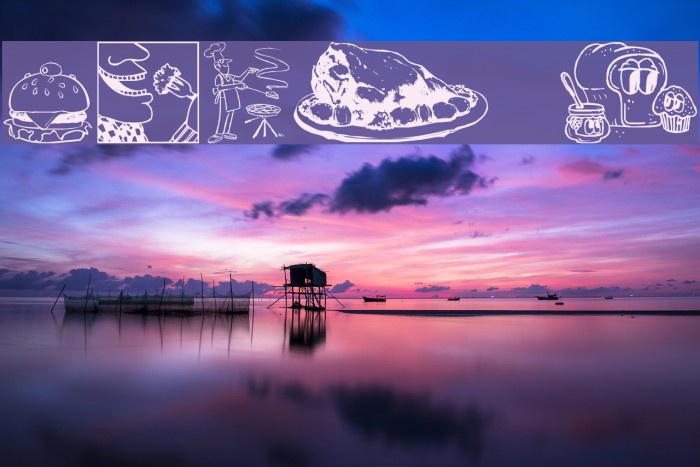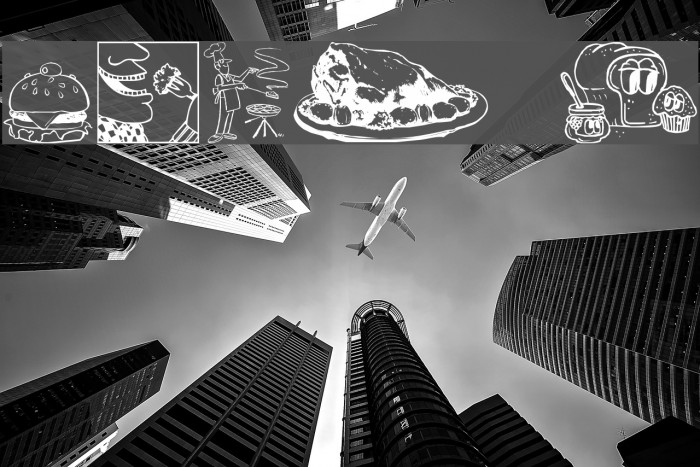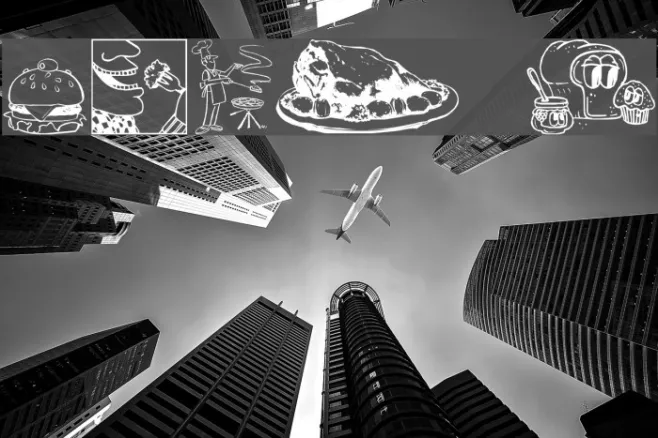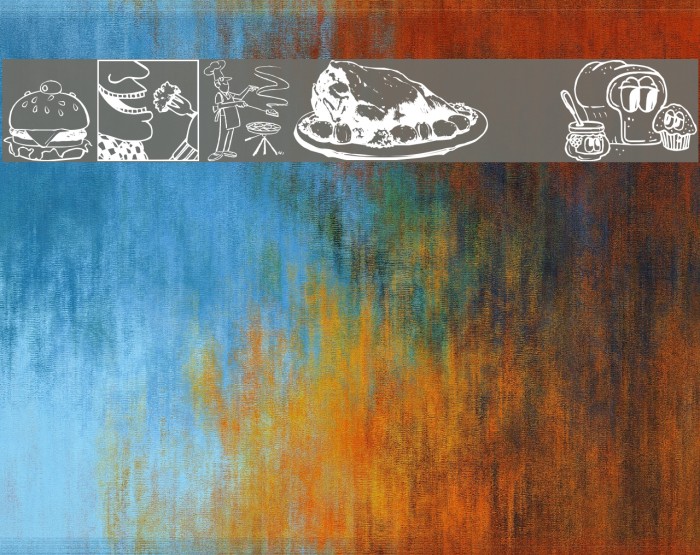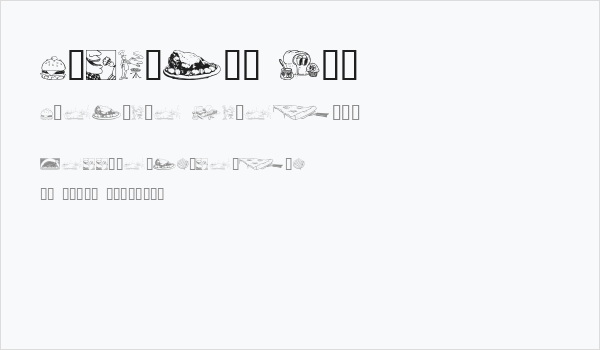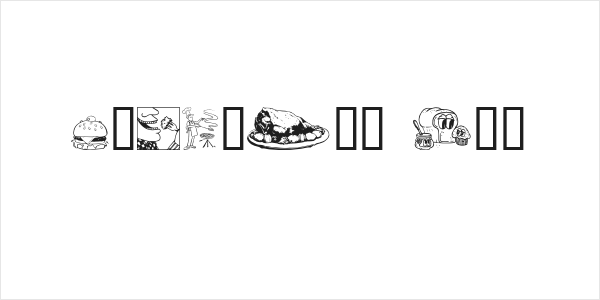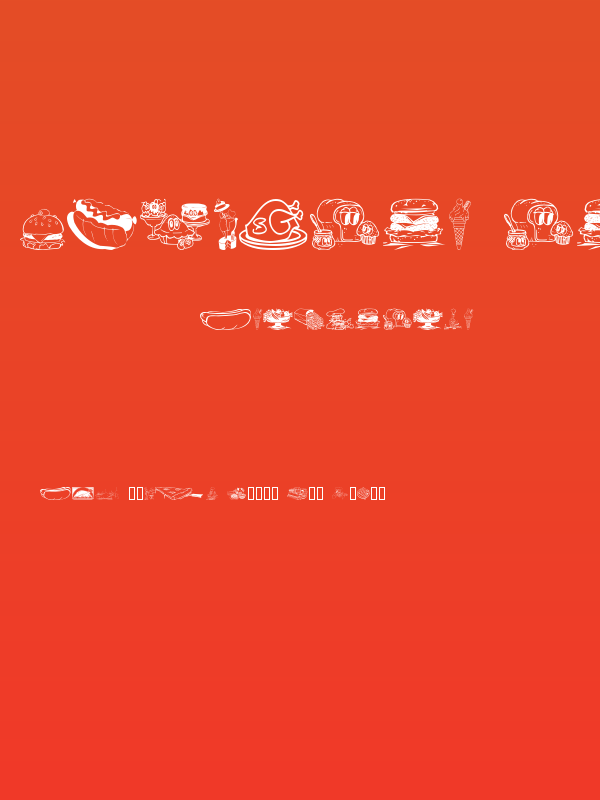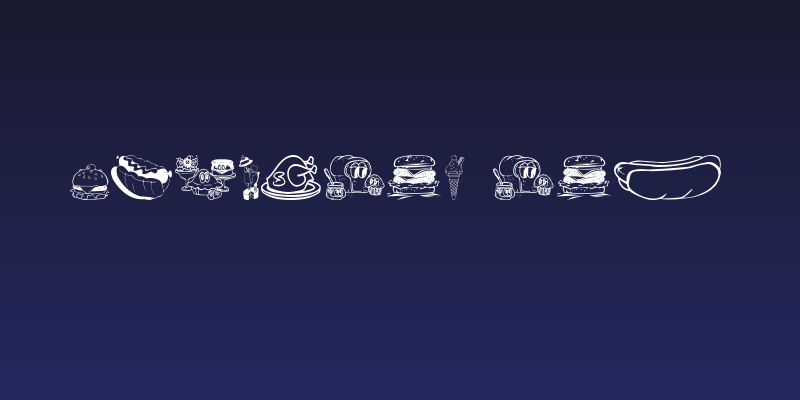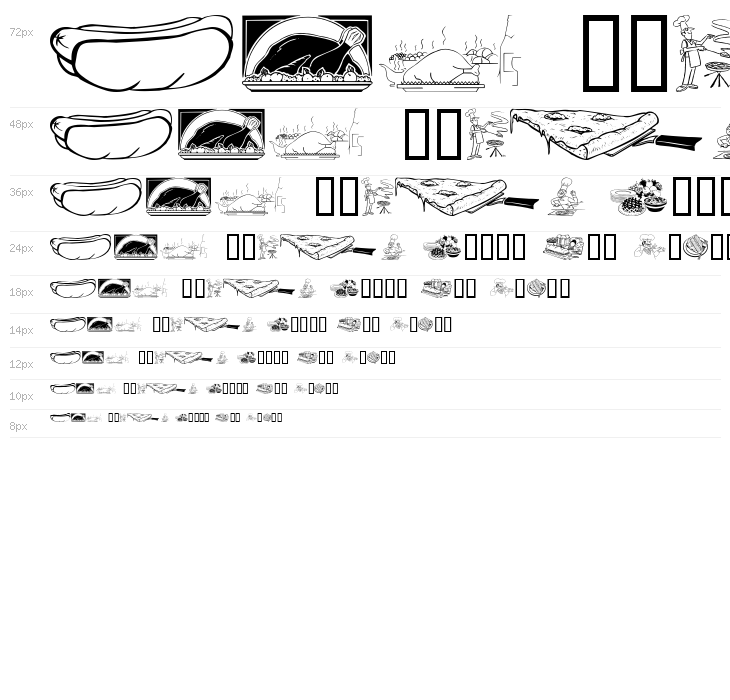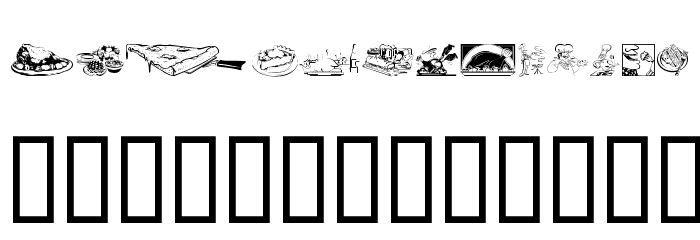
Culinary Art Font
Culinary Art Description
A decorative dingbat font featuring a variety of detailed culinary and food-themed illustrations, including burgers, cheese, chefs, kitchen utensils, and various dishes. Each character is represented by a unique food-related icon, making it visually engaging and playful.
Overall StyleDecorative, Playful
Use CaseIcons, Decorative elements, Themed graphics
Proposed ProjectsRestaurant menus, food blogs, culinary event flyers, recipe books, cooking class advertisements, and childrenÒ€ℒs educational materials.